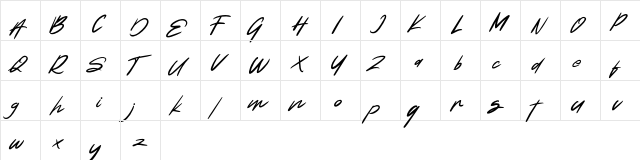
Natide Hegibe FREE Regular
Design Context for Natide Hegibe FREE Typeface
Natide Hegibe FREE is a composed and adaptable typeface that performs quietly and consistently across a wide range of design contexts.